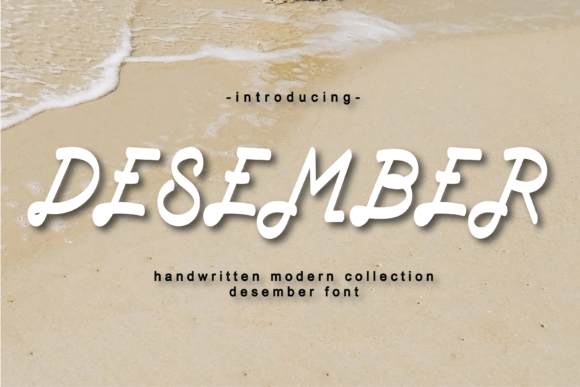
Behold the Enchanting Desember Font: Handcrafted Elegance for Festive Invitations & Designs
Immerse yourself in the whimsical world of Dezember, a captivating script font brimming with warmth, charm, and a touch of festive flair. This exquisite font is the brainchild of hl_studio, renowned for their artistic prowess in creating typographic masterpieces. Desember is their latest offering, a beautifully handwritten font that emulates the graceful flow of a calligrapher's pen. Its delicate strokes and playful curves evoke a sense of authenticity and artistry that will elevate your designs to new heights.
With Desember, you have in your hands a font that is as versatile as it is visually stunning. Whether you're crafting Christmas invitations, heartwarming holiday greeting cards, or designing enchanting posters and flyers, Desember effortlessly adapts to your creative vision. Its charming imperfections and natural aesthetic add a touch of rustic elegance to any project, making it the perfect choice for those seeking a font that is both personal and captivating.
Unleash the Creative Boundless of Desember: A Font for Every Festive Occasion
Step into a world where creativity knows no bounds with Desember. Its remarkable ability to effortlessly blend with various design styles makes it an indispensable tool for designers of all skill levels. Whether you're a seasoned professional seeking to add a touch of individuality to your work or a budding designer eager to make a lasting impression, Desember has something to offer everyone.
Picture this: a Christmas invitation adorned with the enchanting swirls and flourishes of Desember, instantly capturing the essence of the holiday season. Or, envision a wedding invitation that exudes timeless elegance with Desember's graceful curves, delicately guiding your guests to witness the momentous occasion. From birthday cards to anniversary announcements, Desember effortlessly elevates the ordinary into extraordinary, transforming your designs into works of art.
Embrace the Magic of Desember: A Font That Speaks to the Heart
With Desember as your creative companion, you have the power to forge an emotional connection with your audience. Its whimsical charm is like a warm embrace, inviting viewers to embark on a journey of imagination and wonder. Whether you're crafting a heartfelt message or sharing a joyous celebration, Desember's unique character adds depth and sincerity to your words, leaving a lasting impression on the hearts of those who encounter it.
Your imagination is the only limit with Desember. Its versatility knows no bounds, allowing you to effortlessly create designs that resonate with your audience, leaving them captivated and inspired. Let Dezember be your creative ally, guiding you towards typographic excellence and design triumphs.